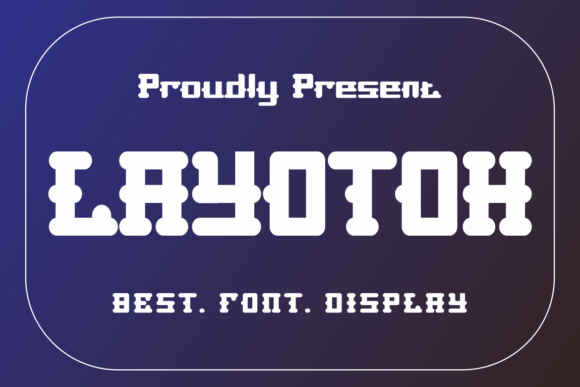
**Layotoh: The Display Font That Commands Attention**
In a sea of ordinary fonts, Layotoh emerges as an extraordinary masterpiece, a bold and captivating display font that will make your designs shine. Crafted by the visionary maikofarazhatta, Layotoh is a serif masterpiece that exudes confidence and sophistication.
Whether you're crafting logos that demand attention, designing t-shirts that make a statement, or creating esports graphics that ignite excitement, Layotoh is your ultimate weapon. With its meticulously crafted characters and unparalleled beauty, Layotoh transforms your digital creations into works of art.
Unlike ordinary fonts that blend into the background, Layotoh stands tall and proud, demanding attention with its bold presence. Its intricate details and elegant curves create a visual symphony that captivates the eyes and sparks imagination.
But Layotoh's allure extends far beyond its aesthetics. This versatile font is a chameleon that adapts effortlessly to any design concept. From classic to contemporary, from playful to professional, Layotoh seamlessly integrates into your vision, adding a touch of brilliance that elevates your designs to new heights.